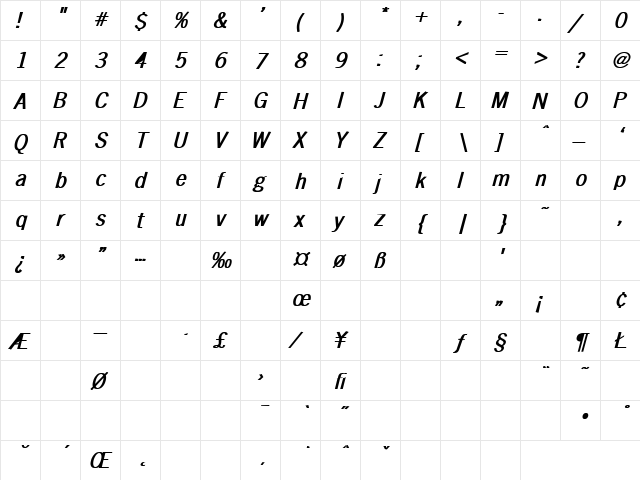
Breakdown 7 Bold Italic Font Preview
Breakdown 7 Bold Italic
Breakdown 7 Bold Italic Font Details
Design Context for Breakdown 7 Typeface
Breakdown 7 is a composed and adaptable typeface that performs quietly and consistently across a wide range of design contexts. The slanted form adds forward momentum and visual energy. The heavy weight commands attention and anchors typographic hierarchies.